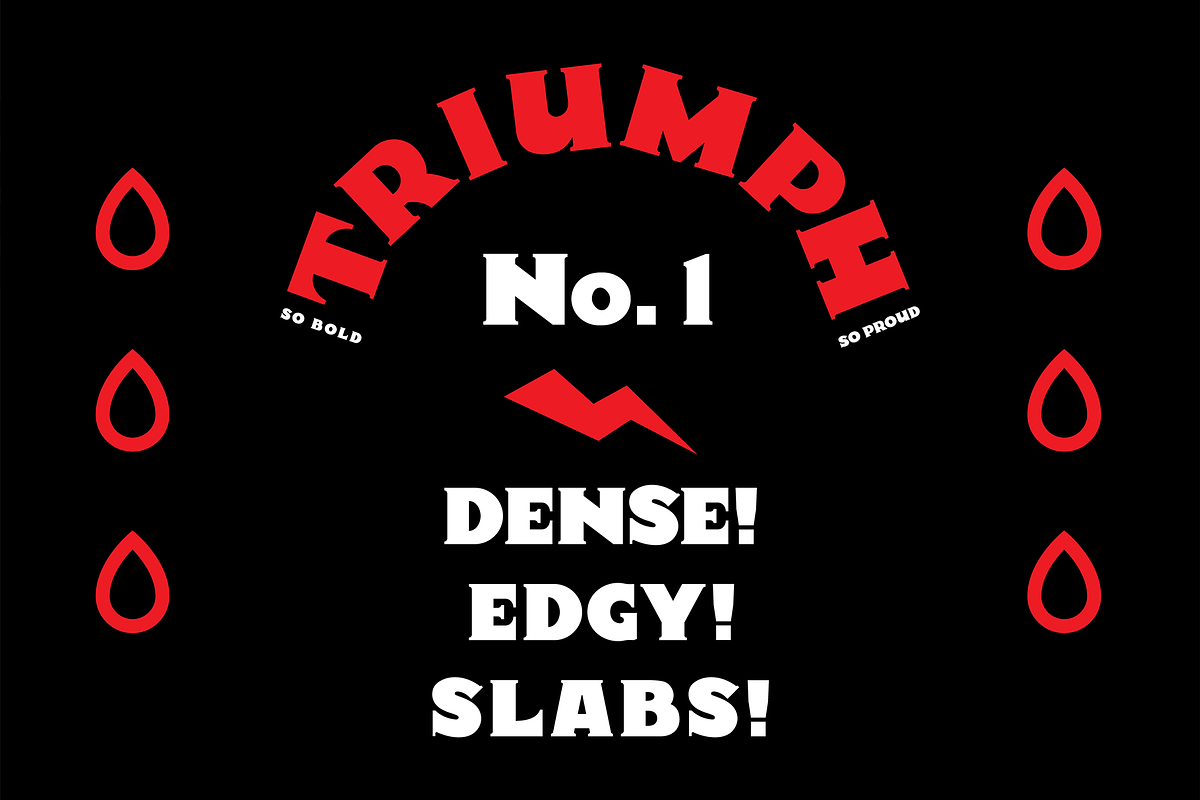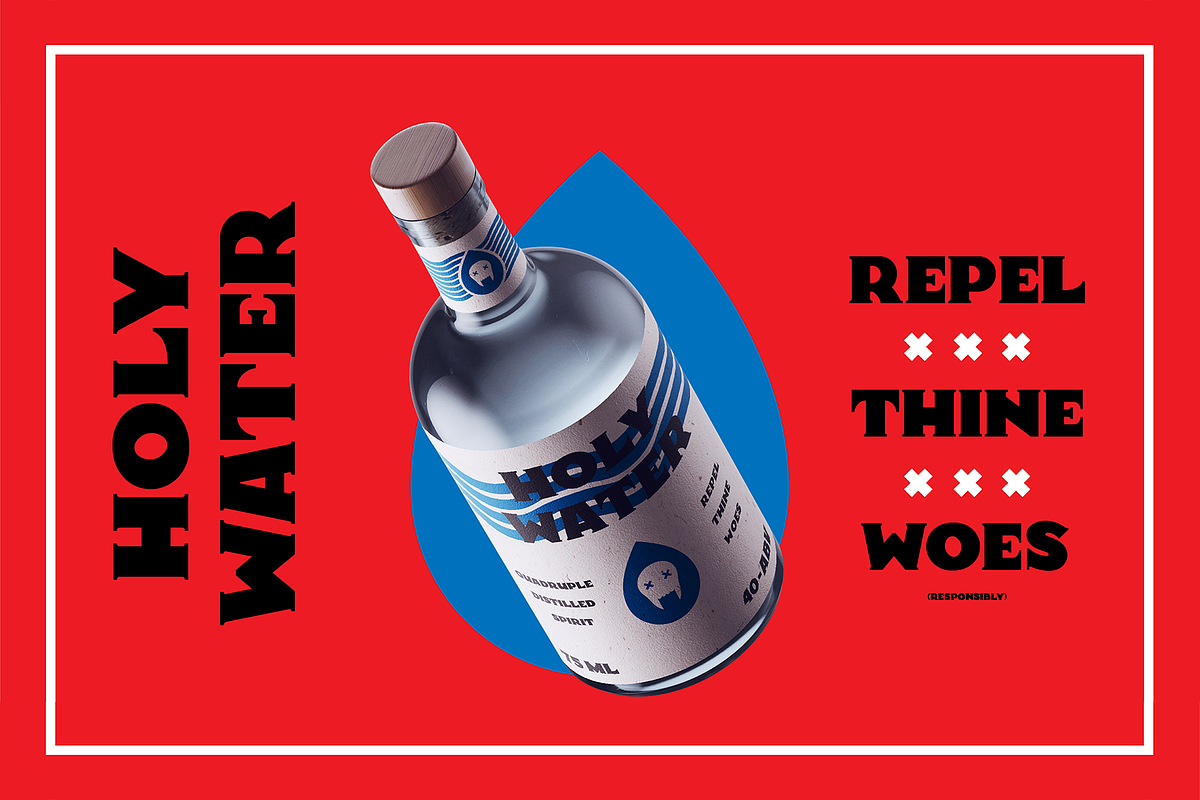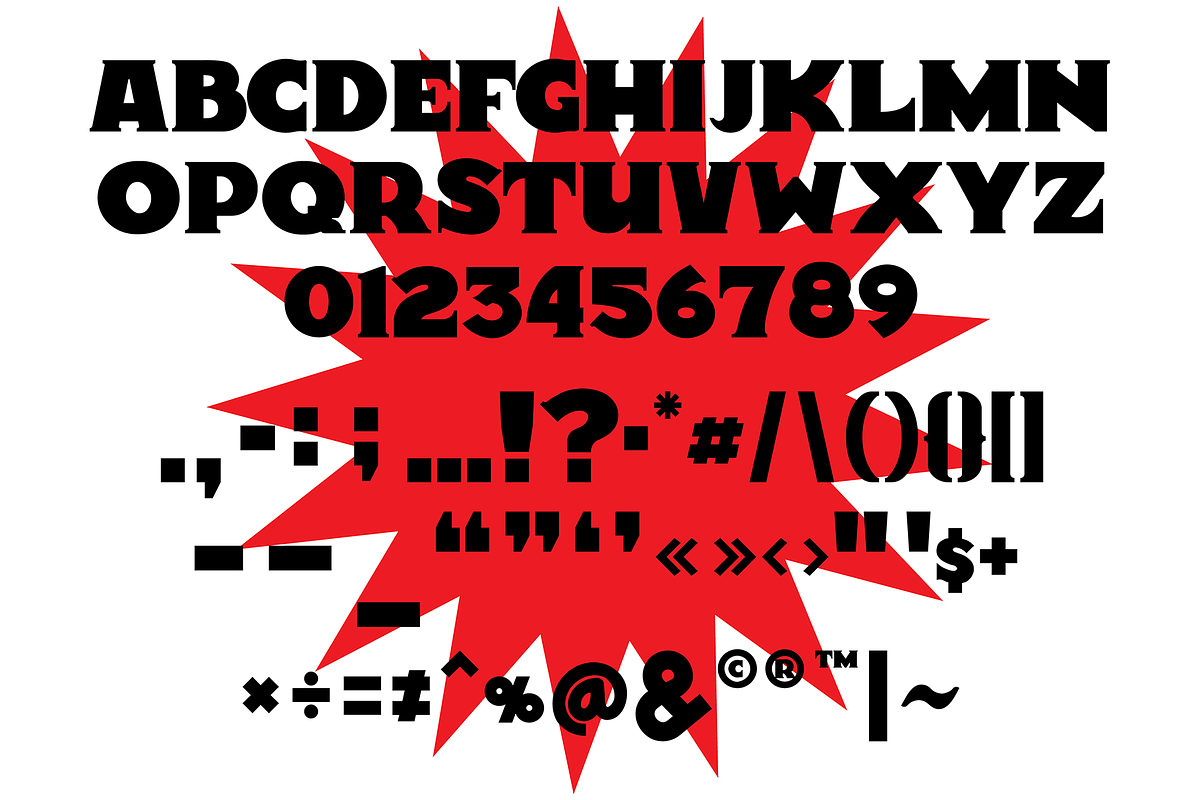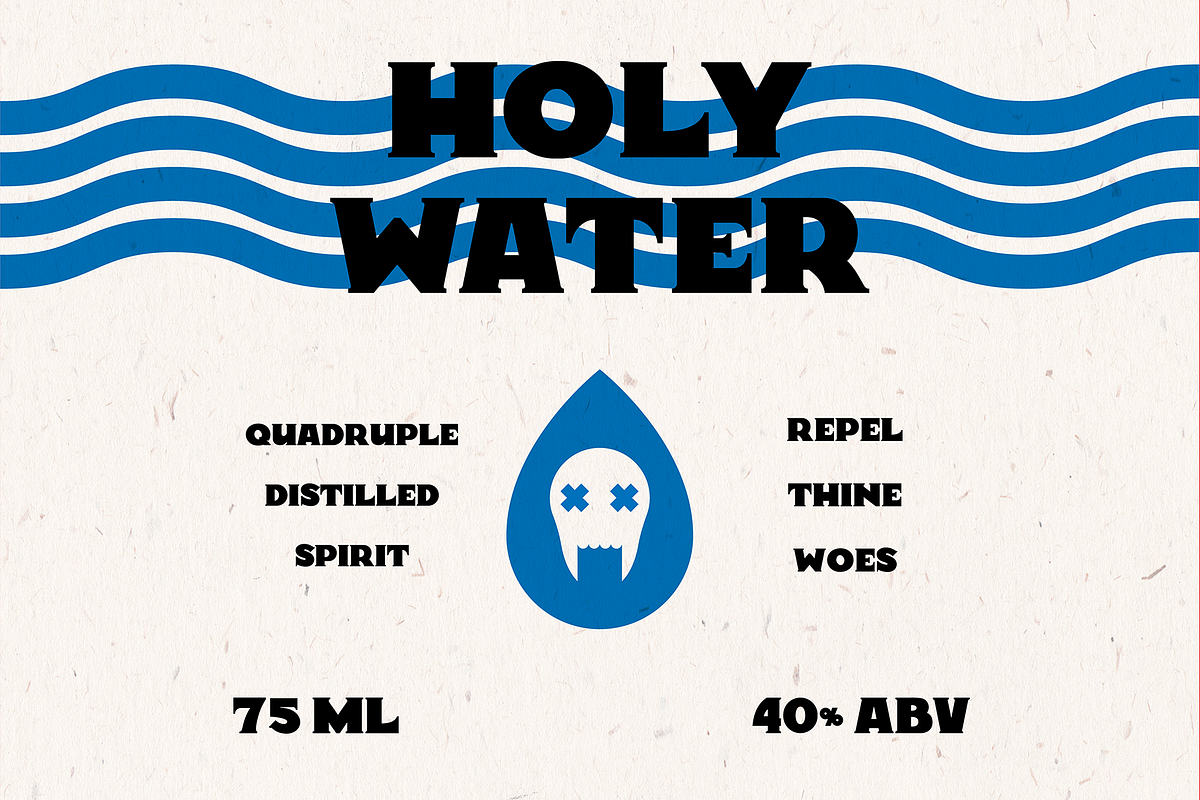
TRIUMPH Typeface
A typeface to combat all manner of nightly creatures.
TRIUMPH Typeface by theoddest fits naturally into Branding, posters, packaging, typography.